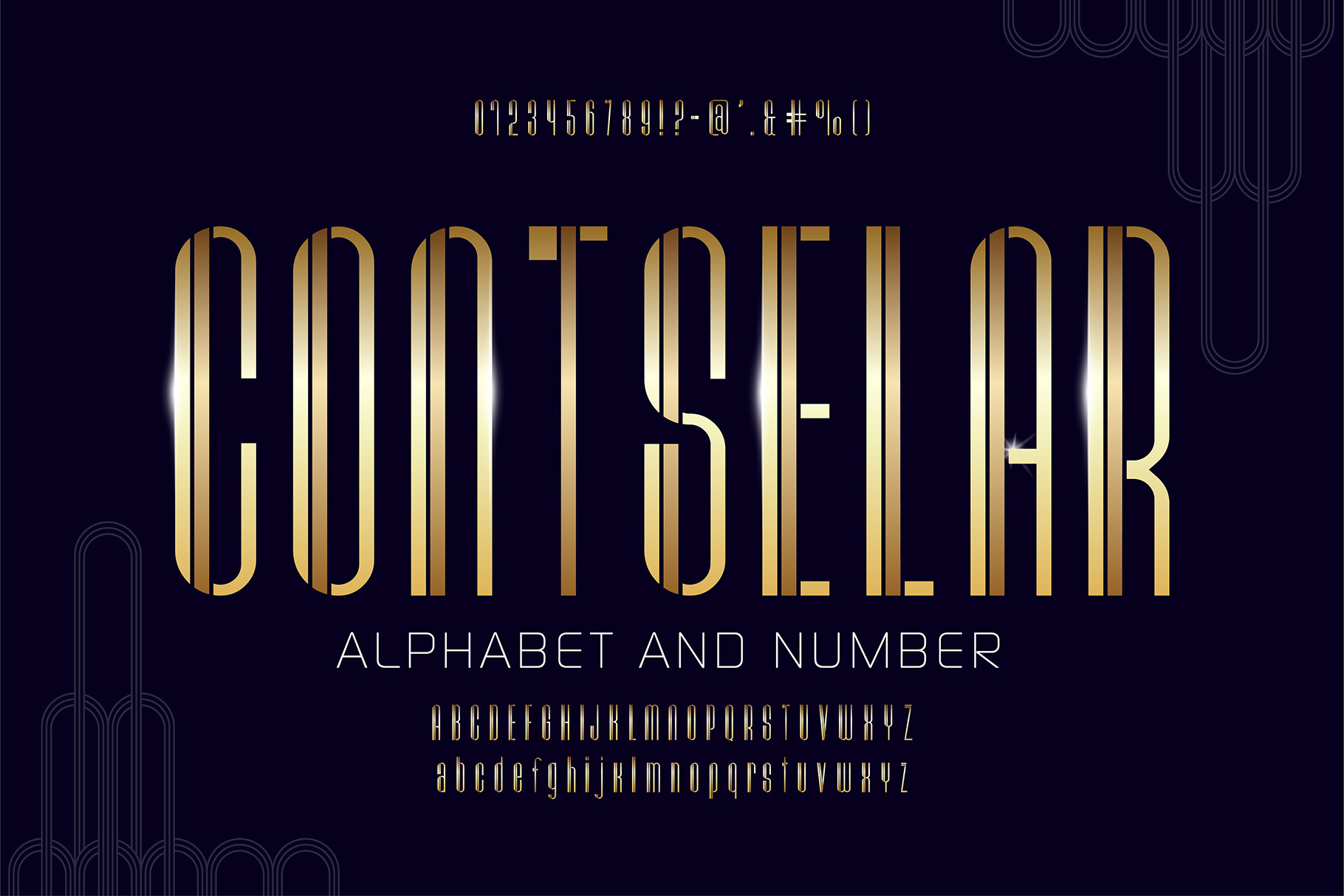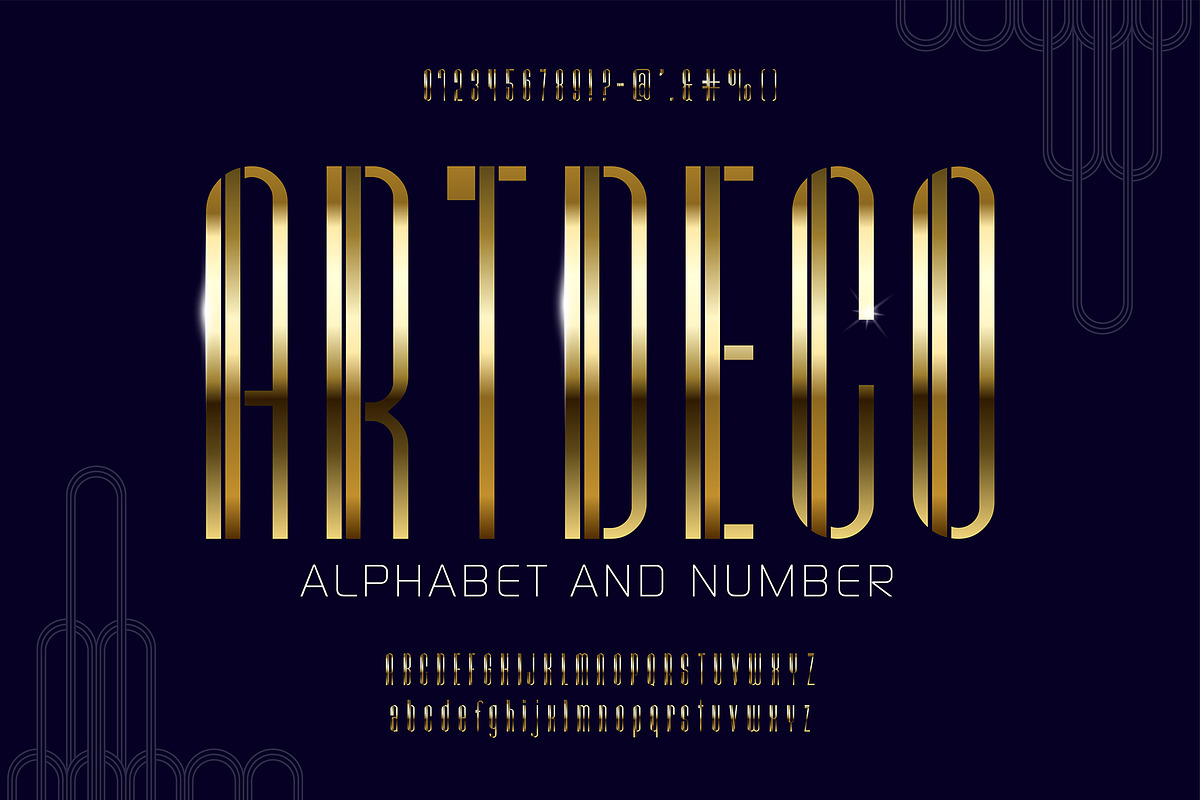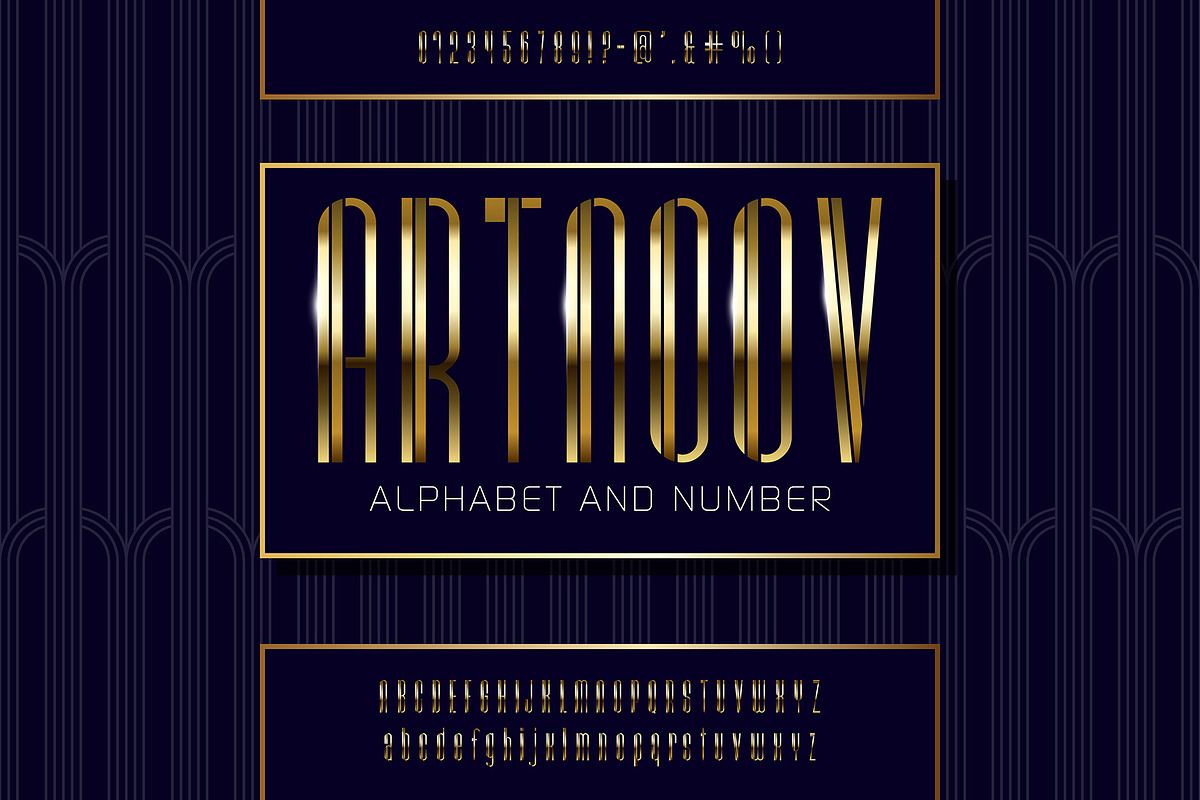
Golden Art Deco Font Set
Elegant Golden Art Deco Font. Luxurious 1920s-Inspired Typeface with Vintage Glamour and Shiny Retro Style for Premium Design - EPS (Not a Font!)
- Uppercase letters A - Z
- Lowercase letters A - Z
- Numbers 0 - 9
- Symbol set
- Clean, modern, and unique alphabet design